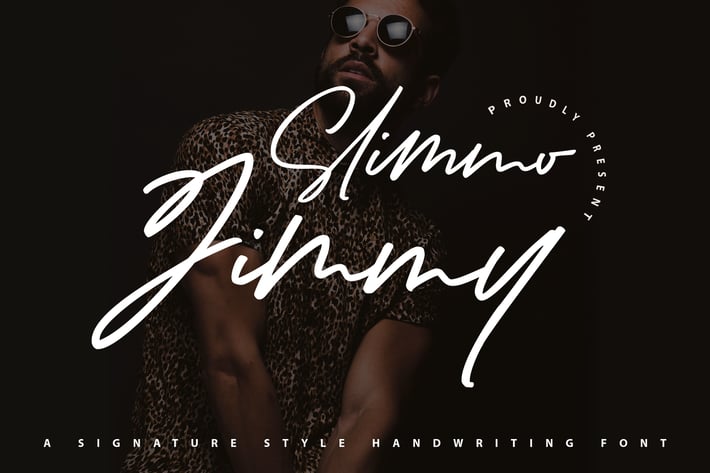
Slimo Jimmy | Signature Handwriting Font
Slimo Jimmy | Signature Handwriting Font with a calligraphy style, So beautiful on invitation like greeting cards, branding materials, business cards, quotes, posters, and more!